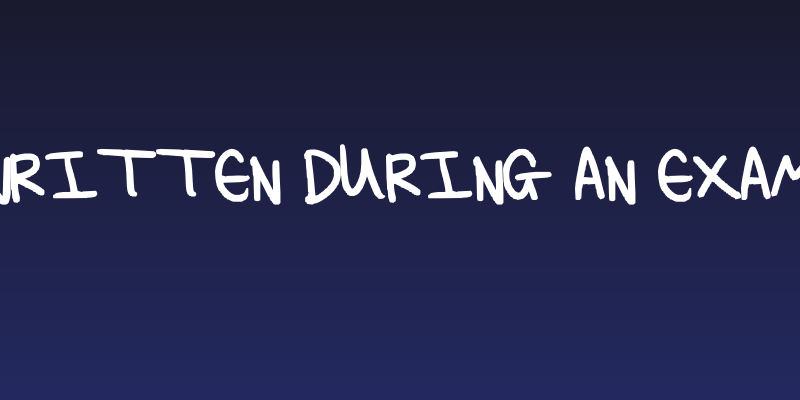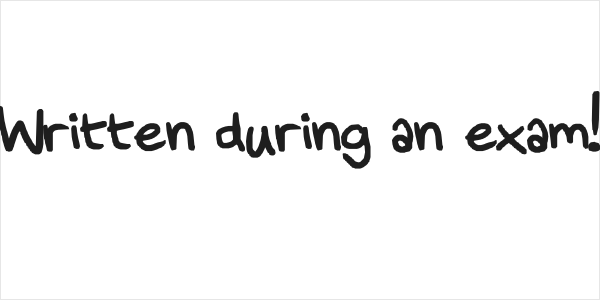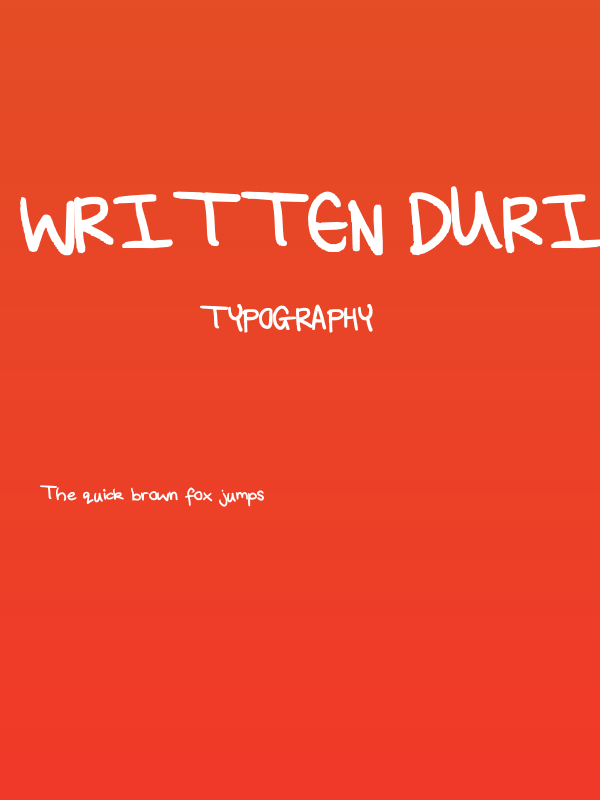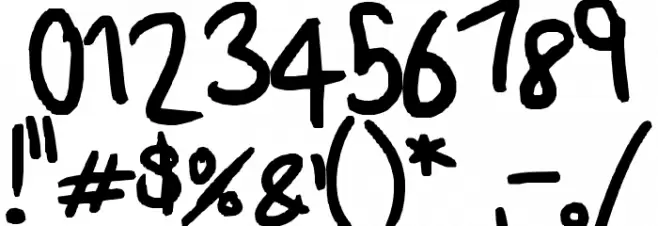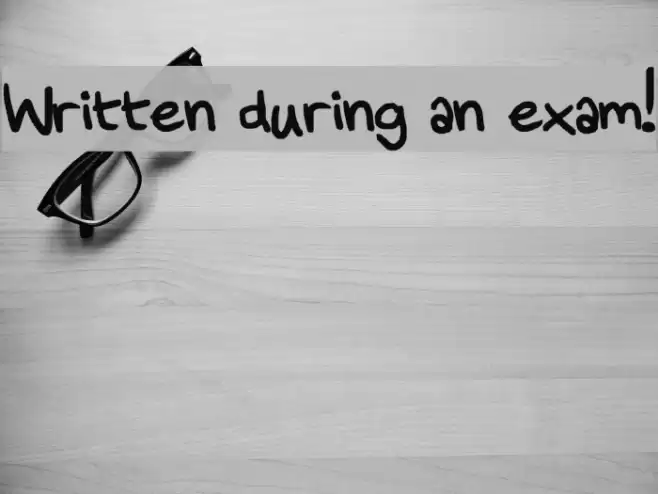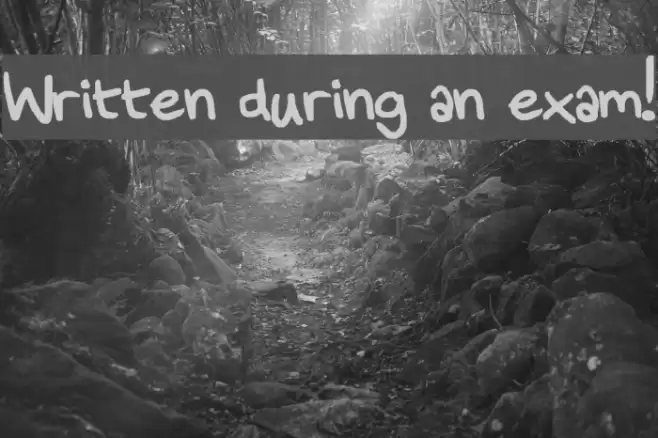
Written during an exam! Font
Written during an exam! Description
This font embodies a casual, handwritten style that mimics the look of text written quickly during an exam. The characters are bold and slightly irregular, giving them a personal and informal appearance. The uppercase and lowercase letters maintain a consistent style, with rounded edges and a playful, approachable feel. Numerals and special characters follow the same aesthetic, ensuring a cohesive look across all text elements. The font's informal nature makes it ideal for projects that require a human touch or a relaxed vibe.
| Overall Style | Casual, Playful |
| Use Case | Headlines, Informal text, Creative projects |
| Proposed Projects | Ideal for personal notes, casual invitations, children's books, and playful branding projects. |